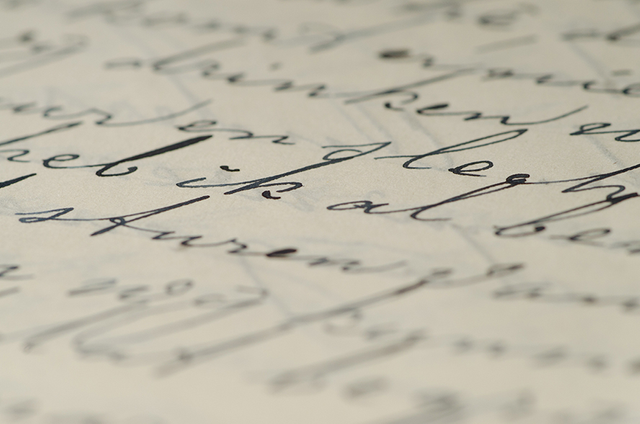
Why Cursivewritinggenerator.com is the Best Tool for Beautiful Script Fonts
With the rise of digital communication, the art of beautiful handwriting may seem like a thing of the past. However, the aesthetic appeal and personal touch of hand-drawn script are evergreen, and there's a way to bring this beauty into the digital world. Enter Cursivewritinggenerator.com, an online tool that's transforming the way we use digital script fonts.
Reviving the Art of Cursive Writing
Before diving into the unique features of Cursivewritinggenerator.com, it's essential to understand the importance of cursive writing in our digital world. Cursive writing, with its elegant curves and fluid connections, has a distinct charm that's often missing in standard digital fonts. The resurgence of cursive and script fonts in digital design is a testament to their enduring appeal.
By using cursive fonts, you can convey a sense of sophistication, creativity, and individuality in your digital communications. Whether it's your personal blog, a wedding invitation, or a logo for your business, cursive fonts add a personal and distinctive touch.
What Makes Cursivewritinggenerator.com Stand Out
Among the various online font generators, Cursivewritinggenerator.com stands out for several reasons. Its user-friendly interface makes it easy for anyone to generate beautiful script fonts. You don't need any design or technical skills to use this tool. Simply enter your text, and the generator will convert it into a beautiful script font.
Moreover, the site offers a wide variety of cursive styles, giving you plenty of options to choose from. Whether you prefer a modern, sleek script or a vintage, ornate cursive, you're sure to find a style that suits your taste.
Practical Applications of Cursive Writing Generator
The cursive writing generator isn't just for creating aesthetically pleasing text; it has many practical applications as well. Here are a few ways you can use this tool:
Logo Design: If you're a small business owner or a freelancer, you can use the generator to create a unique and eye-catching logo for your business. A cursive font can make your logo stand out and convey your brand's personality effectively.
Social Media Graphics: Cursive fonts can add a creative touch to your social media posts and graphics, making them more engaging and shareable. With the cursive writing generator, you can quickly create stylized text for your Instagram stories, Facebook posts, or Pinterest pins.
Invitations and Greeting Cards: Whether it's a wedding invitation or a holiday greeting card, cursive fonts can add a touch of elegance and warmth. With the generator, you can create beautiful, personalized text for your invitations and cards.
Conclusion
In the age of digital communication, Cursivewritinggenerator.com is a fantastic tool that brings the elegance and personal touch of cursive writing into our daily digital interactions. With its easy-to-use interface and a wide variety of styles to choose from, it's the best tool for creating beautiful script fonts for any purpose. Whether you want to stand out on social media, create a distinctive logo, or add a personal touch to your invitations, Cursivewritinggenerator.com has got you covered.